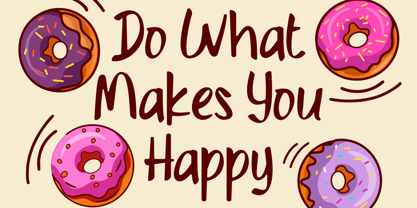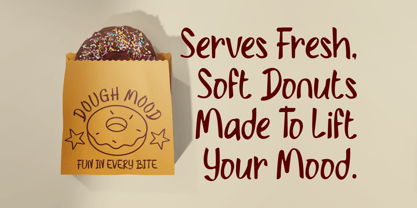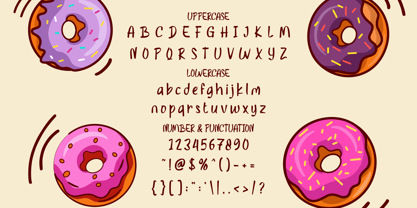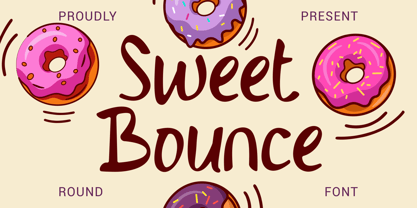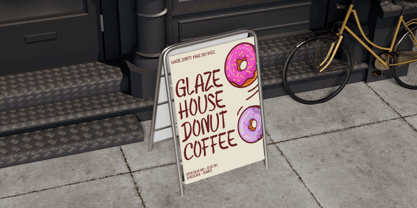
Sweet Bounce
by Shanaf
The Sweet Bounce Font Family was designed by Yesie Erma Yunita and published by Shanaf. Sweet Bounce contains 1 styles. More about this family
Sweet Bounce Round Font features soft handwritten lettering with rounded terminals and friendly proportions. The strokes appear moderately thick with smooth curves that create a warm and approachable tone. Each character carries a slightly uneven rhythm that mimics casual marker writing. The baseline feels lively, giving words a gentle bouncing motion across compositions. Ascenders rise tall and narrow while descenders extend softly with relaxed curves. Stroke weight remains balanced, which keeps the letters clear in large titles. The counters stay open and spacious, improving readability in bold headlines. Sweet Bounce Round Font blends playful handwriting with rounded display structure. The overall style feels cheerful, modern, and expressive without appearing rigid. This lettering structure creates strong personality for memorable wordmarks and brand titles. This font suits branding projects focused on food businesses and dessert themed products. It works effectively for donut shops, bakeries, pastry brands, and sweet snack businesses. The playful rhythm supports logo design, product packaging, and promotional headlines. Designers can apply it to posters, advertising graphics, and menu titles. The friendly shapes also fit signage, storefront displays, and product labels. It works well for greeting cards, invitations, and cheerful quote designs. The lettering style supports book covers, magazine titles, and sticker graphics. Businesses that promote sweet treats benefit from its warm personality. Sweet Bounce Round Font helps create inviting brand identities with playful handwritten lettering and rounded display forms.
Designers: Yesie Erma Yunita
Foundry: Shanaf